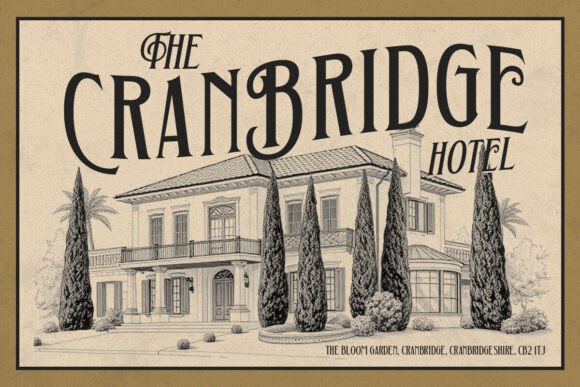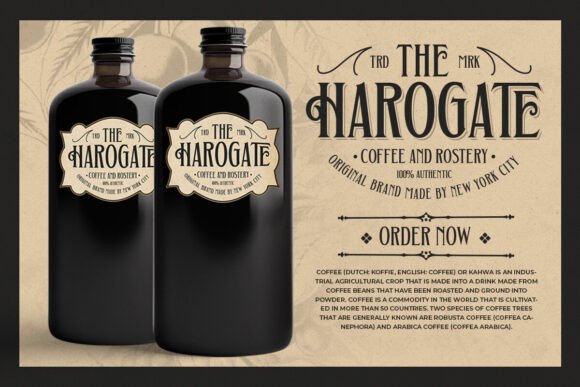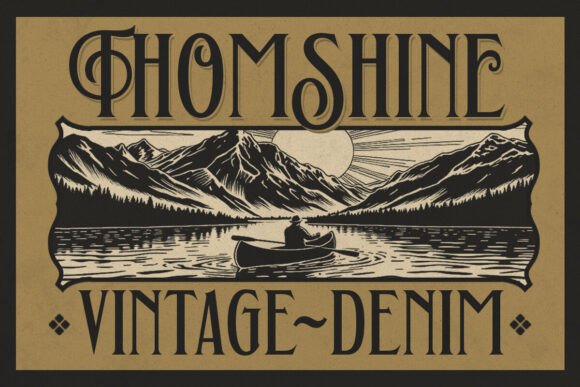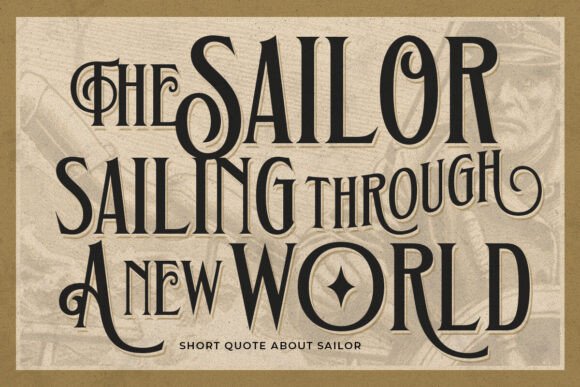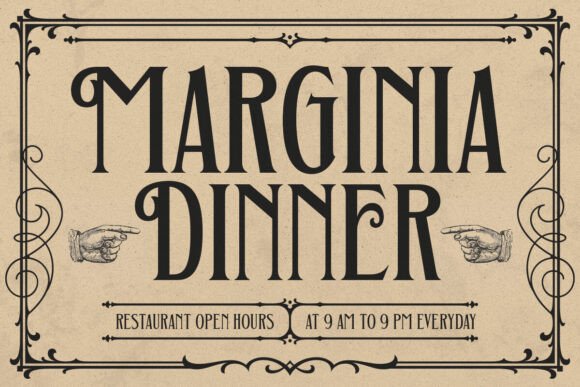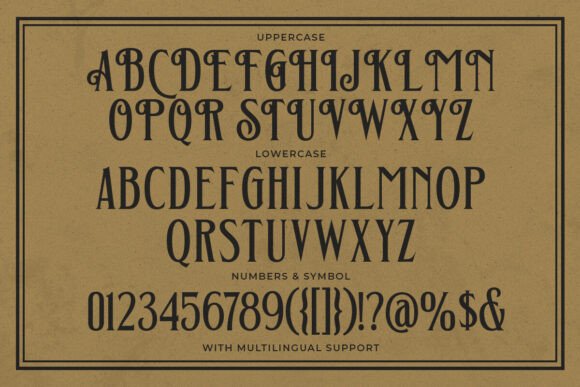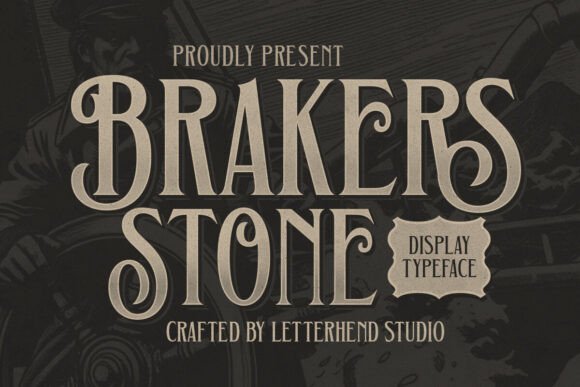
Brakers Stone Font: Elevate Your Designs with a Timeless Aesthetic
In the world of typography, few fonts manage to capture the essence of vintage design while still being versatile enough for modern applications. Brakers Stone Font is one such typeface that seamlessly blends bold letterforms with decorative elements, resulting in a timeless aesthetic that leaves a lasting impression. Whether you’re a designer looking to create stunning packaging, a marketer aiming for captivating advertising, or a crafter working on unique apparel designs, Brakers Stone is the perfect choice to elevate your projects.
The Unique Charm of Brakers Stone Font
Brakers Stone Font stands out in the crowded world of typography due to its distinctive blend of boldness and elegance. The font’s letterforms are carefully crafted to exude a sense of strength and reliability, while the decorative elements add a touch of sophistication and charm. This unique combination makes Brakers Stone perfect for designs that require a vintage flair without compromising on readability or impact.
Key Features of Brakers Stone Font
- Bold Letterforms: The font’s bold letterforms are designed to grab attention and make a statement. Perfect for headlines, titles, and any design element that needs to stand out.
- Decorative Elements: The decorative elements woven into the font add a layer of complexity and interest, making Brakers Stone suitable for a wide range of design applications.
- Timeless Aesthetic: The font’s vintage-inspired design ensures that it remains relevant and stylish, regardless of current trends.
- Versatility: From packaging and advertising to apparel and digital content, Brakers Stone can be used across various mediums to create visually appealing designs.
Applications of Brakers Stone Font
The versatility of Brakers Stone Font makes it an excellent choice for various design projects. Here are some of the key areas where this font can make a significant impact:
- Packaging Design: Create eye-catching product packaging that stands out on store shelves. The bold and decorative nature of Brakers Stone makes it perfect for labels, logos, and branding elements.
- Advertising: Use Brakers Stone to craft compelling advertisements that capture attention and convey your message effectively. The font’s readability and aesthetic appeal make it suitable for both print and digital ads.
- Apparel Design: Add a unique touch to your apparel designs with Brakers Stone. The font’s vintage charm works well for t-shirts, hoodies, and other clothing items, making them stand out.
Tips for Using Brakers Stone Font Effectively
To get the most out of Brakers Stone Font, consider the following tips:
- Pair with Complementary Fonts: While Brakers Stone is bold and decorative, pairing it with simpler fonts can create a balanced and visually appealing design.
- Experiment with Colors: The font’s vintage aesthetic works well with a variety of color schemes. Experiment with different colors to find the perfect combination that enhances your design.
- Pay Attention to Spacing: Ensure that your design has adequate spacing to prevent overcrowding. This will help maintain the font’s readability and overall impact.
Brakers Stone Font is a powerful tool for designers and crafters looking to infuse their projects with a timeless aesthetic. Its unique blend of bold letterforms and decorative elements makes it perfect for creating memorable and impactful designs. Whether you’re working on packaging, advertising, apparel, or any other design project, Brakers Stone is sure to leave a lasting impression. Embrace the charm of this vintage-inspired font and elevate your designs to new heights.